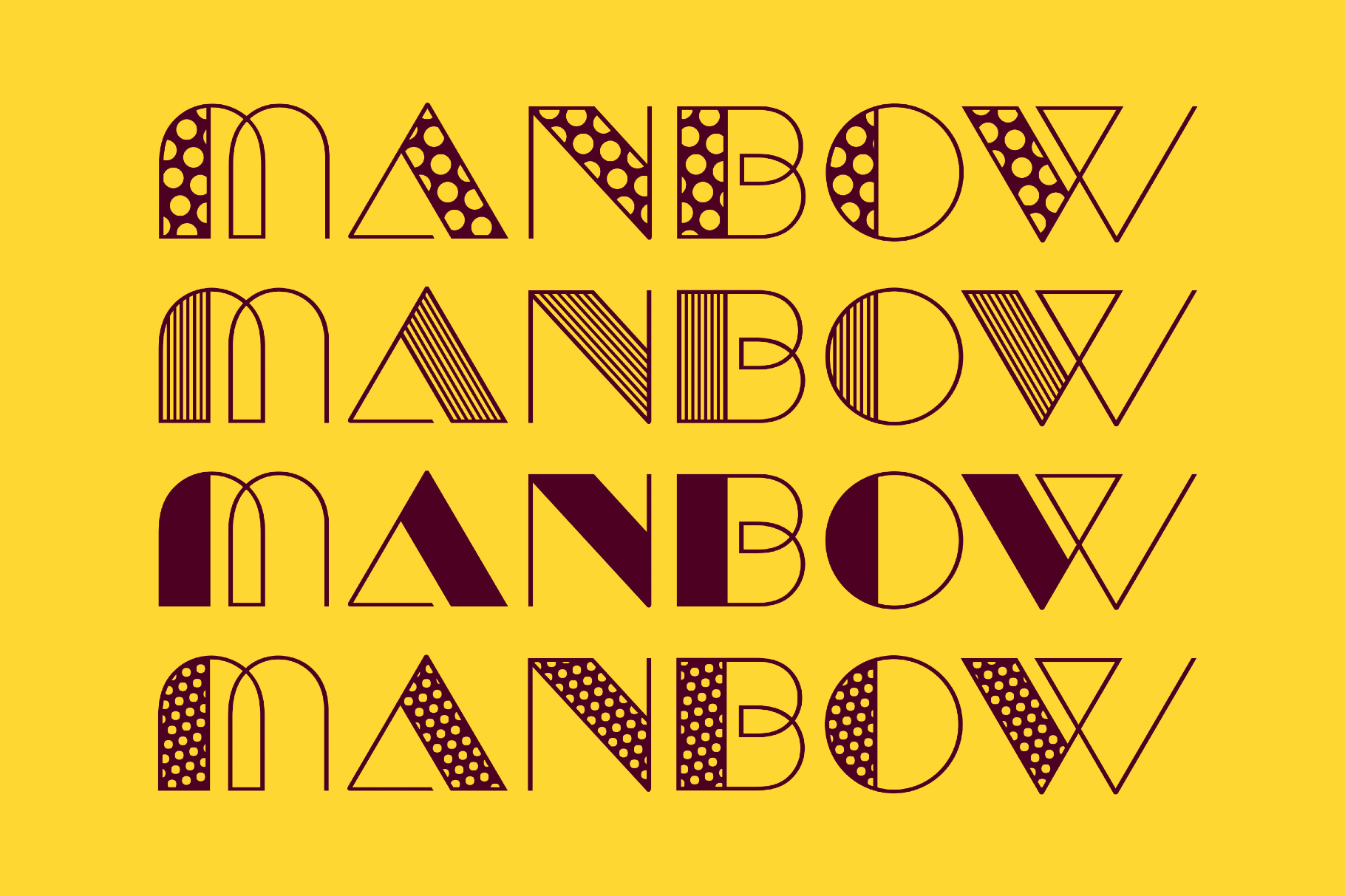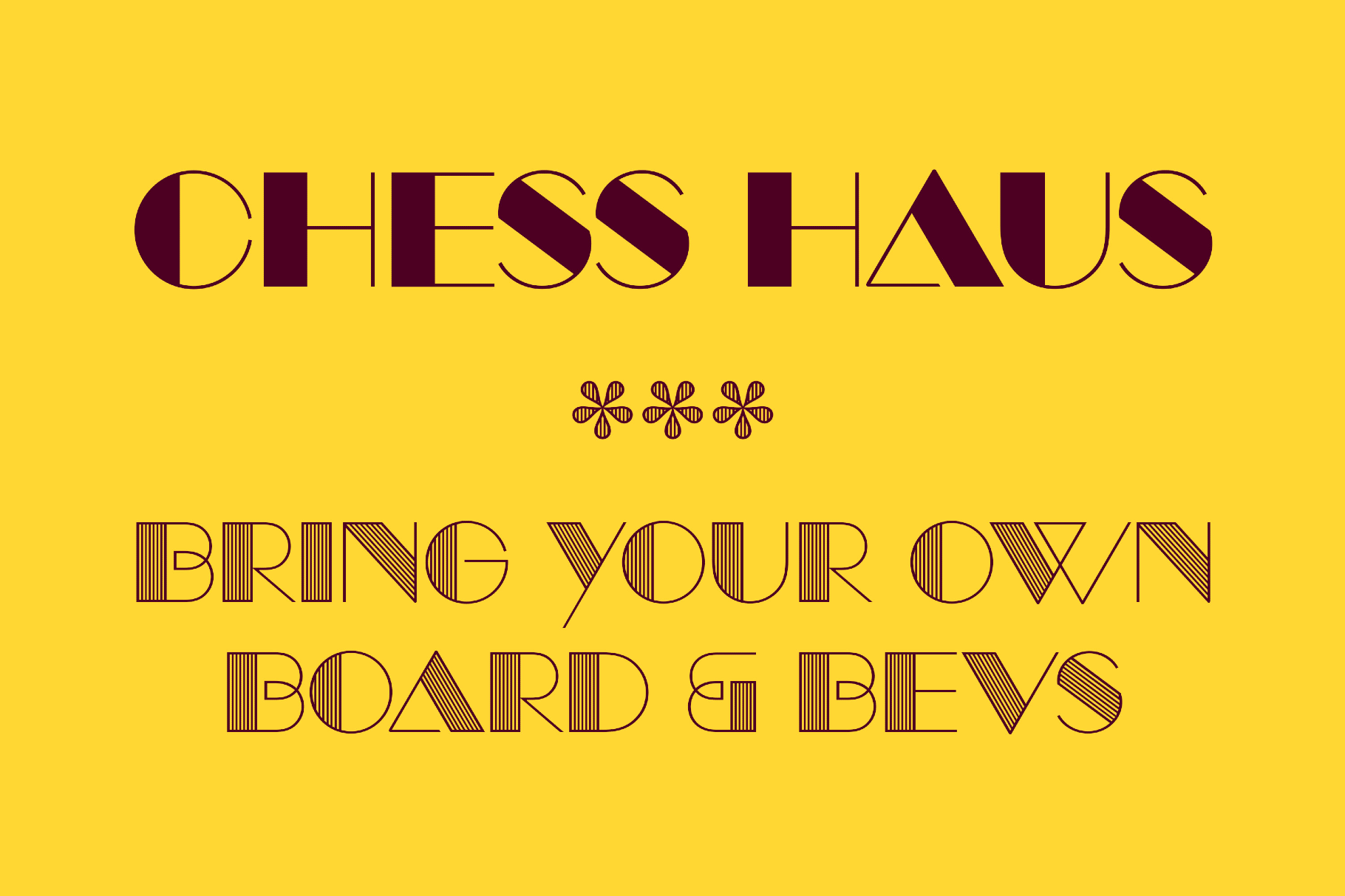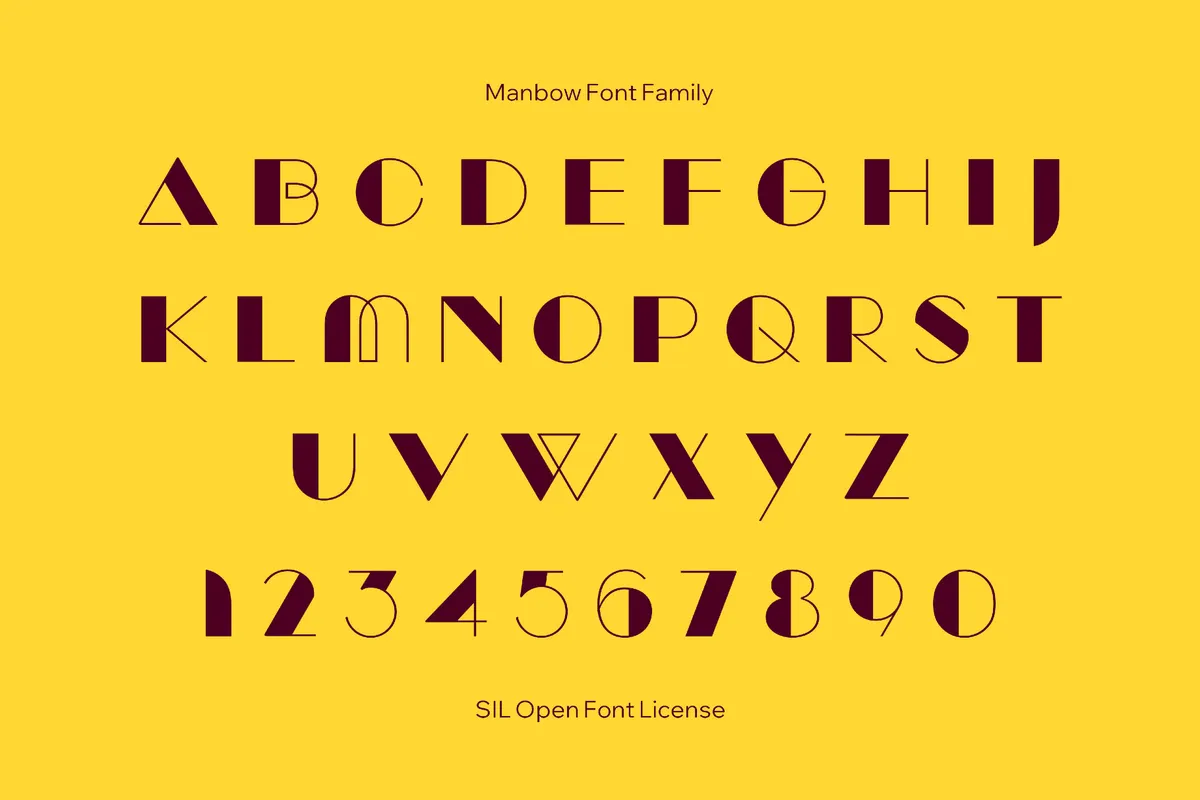
Manbow Font Family
Clear
Dots
Fill
Lines
Screen
Solid
Spots
Stripe
Tone
Manbow is a geometric Art Deco font set. It blends chunky, rounded strokes with a sun-faded 1970s poster vibe and a hint of cartoon titles. The family works beautifully for statement posters, book and album covers, event branding, packaging and labels, editorial mastheads, and social or web graphics.
- Nine styles.
- Uppercase letters only.
- Multilingual support across extended Latin scripts.
- Extended set of mathematical symbols and metrics.